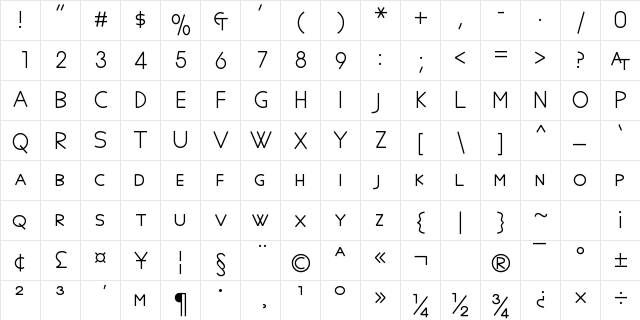
Aegean Regular
| Designer | George Douros |
Design Context for Aegean Typeface
Aegean offers clean, dependable letterforms without strong stylistic allegiance, making it a practical choice for designers who need flexibility.